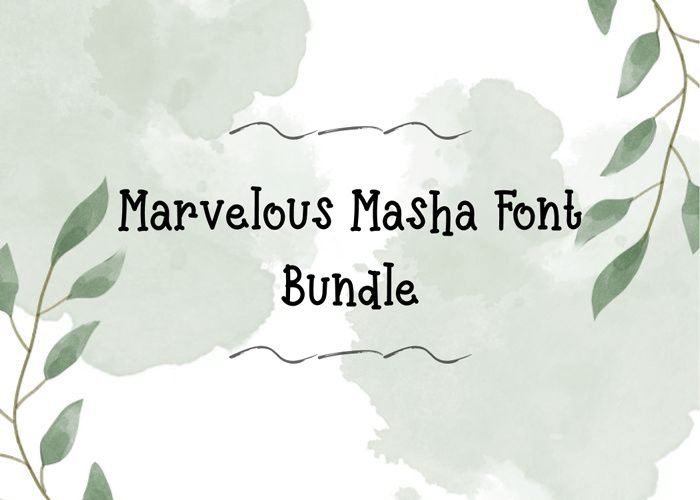
The Marvelous Masha Font – Freebie
The Marvelous Masha Font Freebie
Get ready to elevate your design projects with The Marvelous Masha, a stunning and versatile handwritten font. This font is perfect for those who want to add a touch of elegance and charm to their designs.
The Marvelous Masha comes with a full set of uppercase and lowercase letters, as well as numerals and punctuation marks. Its delicate and intricate strokes create a beautiful and authentic handwritten feel, making it a great choice for invitations, logos, and social media graphics.
But what makes The Marvelous Masha truly remarkable is its versatility. Whether you’re creating a vintage-inspired design or a modern and chic look, this font can adapt to any style.